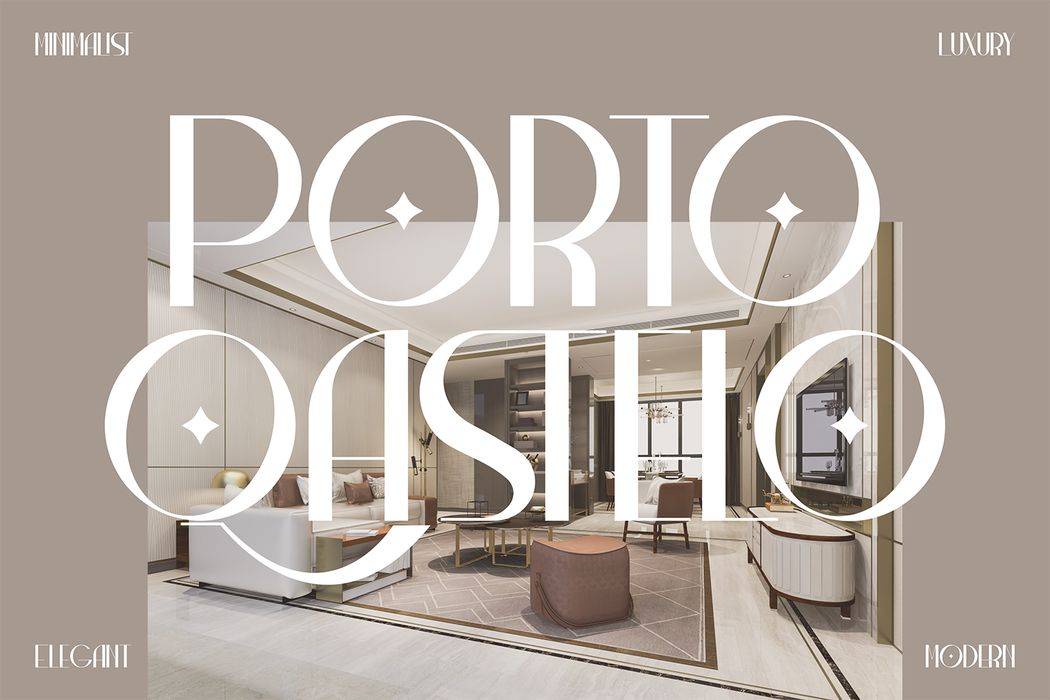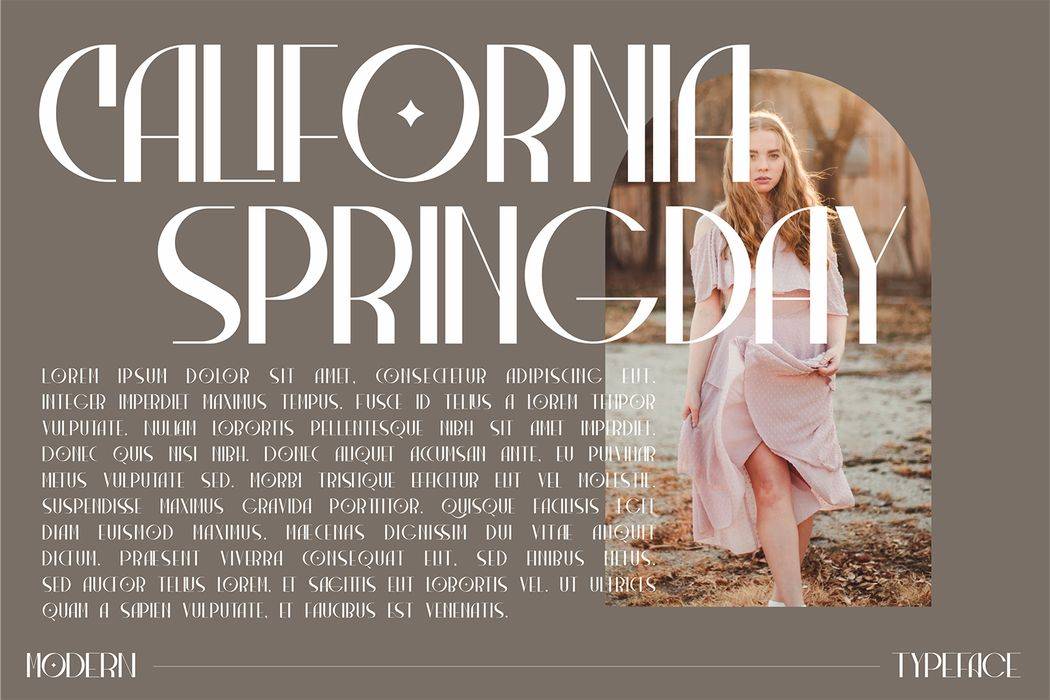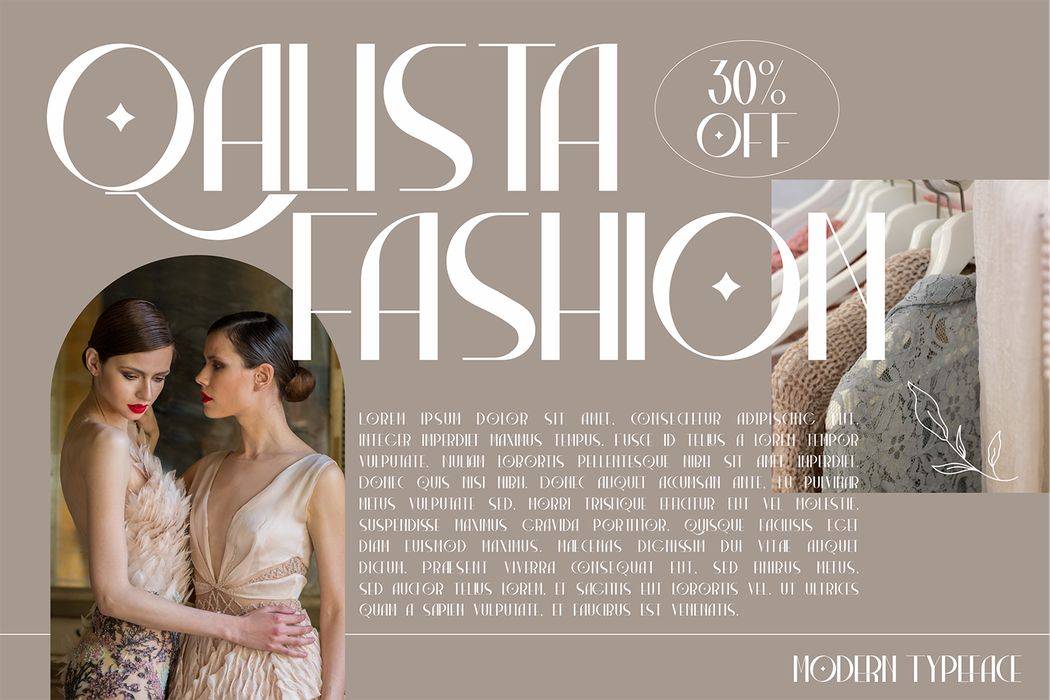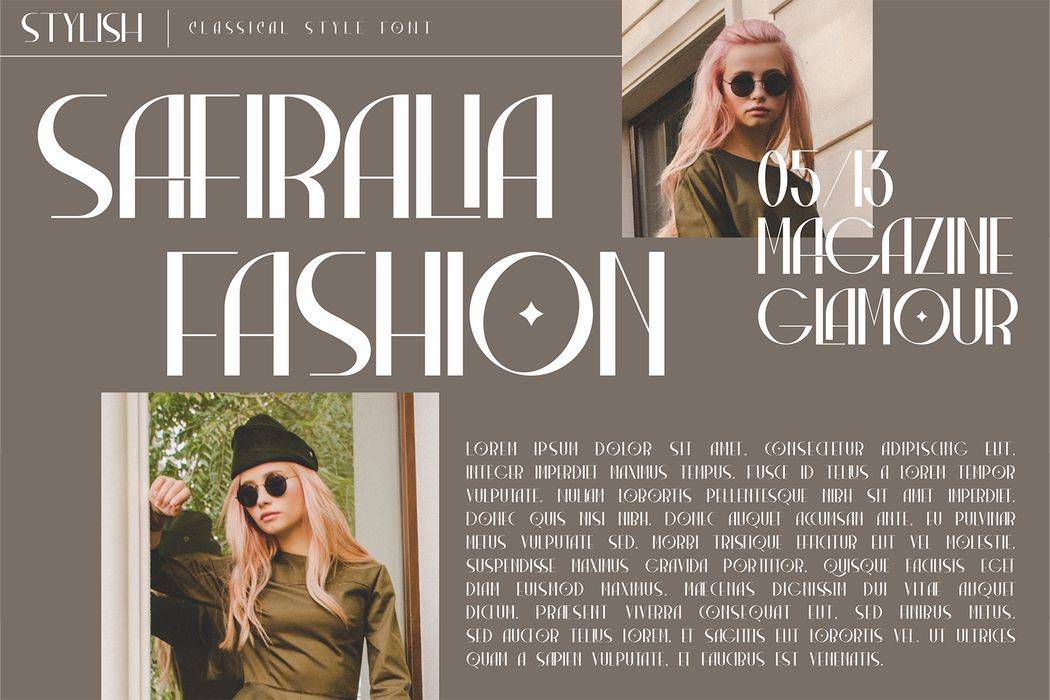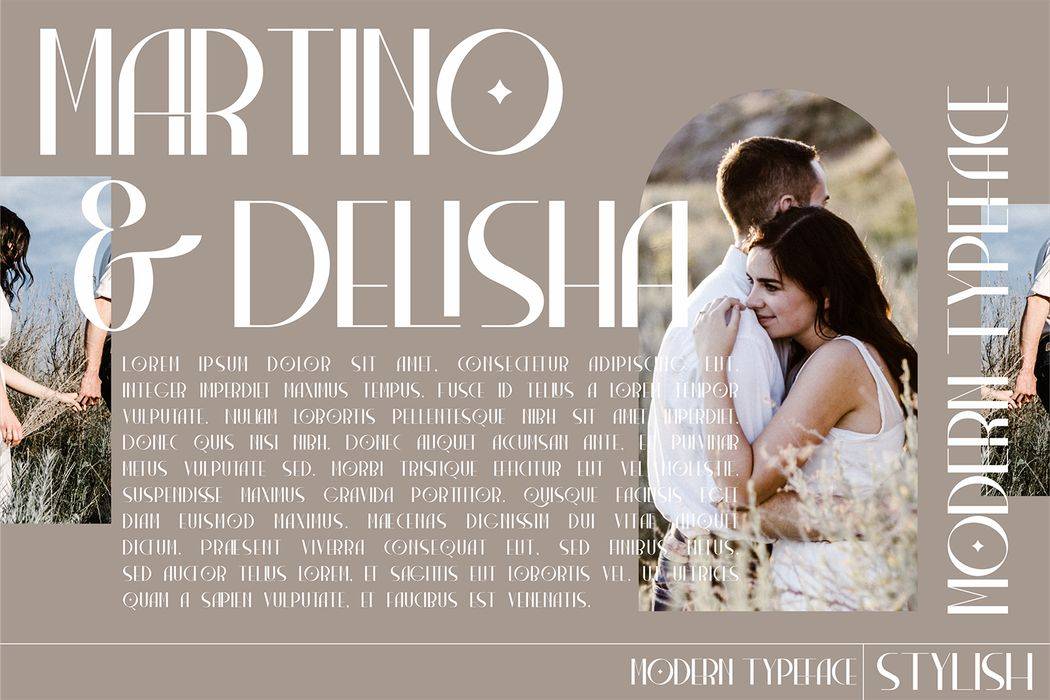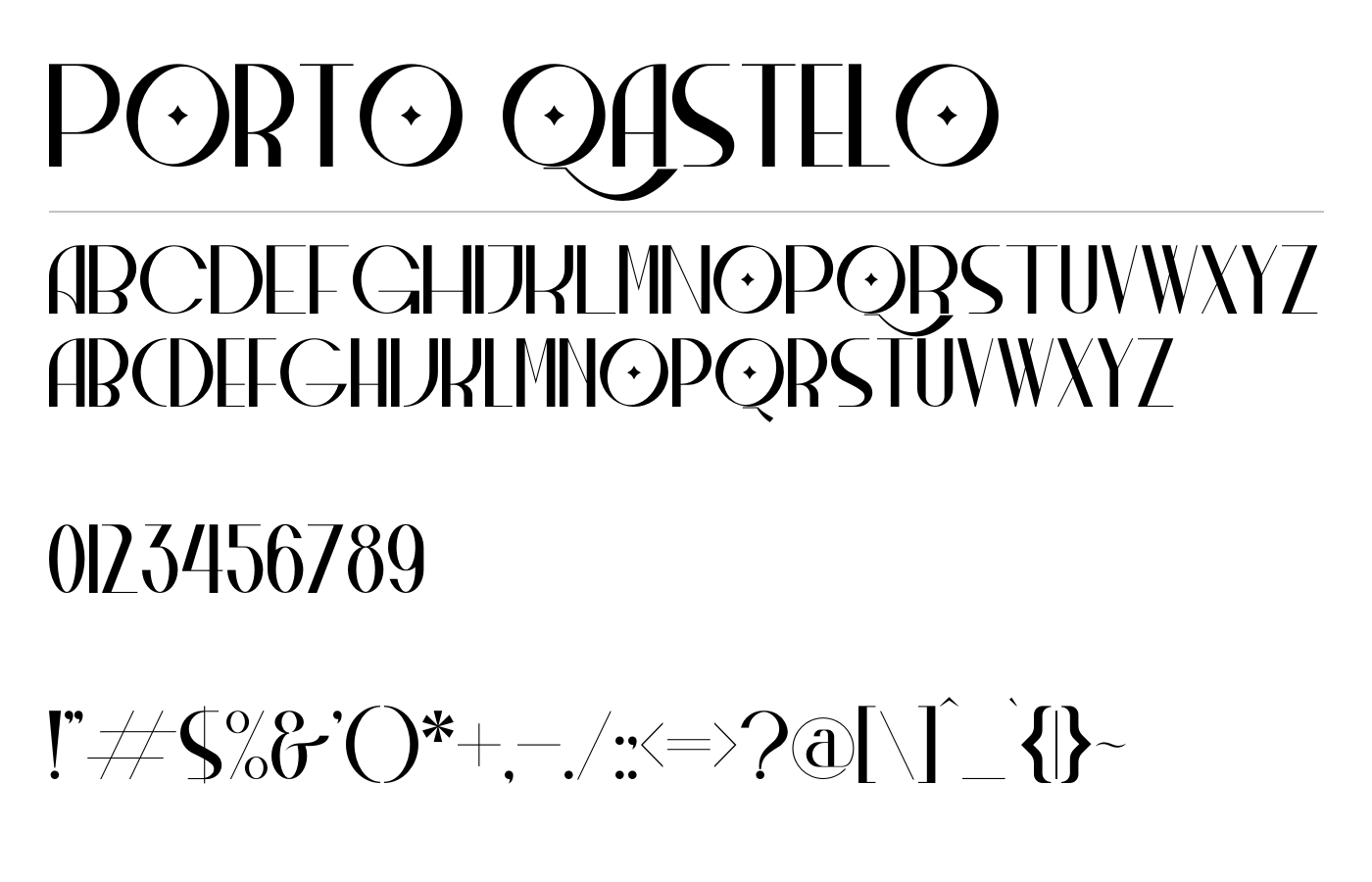
Porto Qastelo is a modern, elegant serif font characterized by its high contrast between thick and thin strokes and strikingly thin, elongated letterforms. With its decorative diamond shapes inside the rounded letters and unique flourishes on characters like Q and R, it exudes a vintage yet sophisticated aura perfect for luxury branding, fashion, and high-end editorial use. This font works best in large display settings such as logos, headlines, and packaging where its refined details can truly stand out.
Porto Qastelo Font
About Porto Qastelo Font